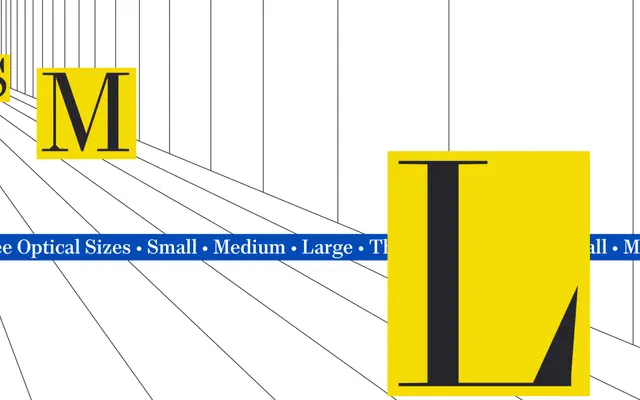
Montris L
A neoclassical serif by Rui Abreu, optimised for large headlines and titles as the display optical size within the broader Montris family.
Montris L is the largest of three optical sizes in Rui Abreu's Montris family, designed specifically for use from 96 point upward where its refined, high-contrast forms read at their best. The family sits stylistically between Modern and Scotch Roman types, offering a digitally precise take on neoclassical form without affectation. Twelve styles cover six weights from ExtraLight to Black, each with a matching italic, making it well suited to magazine and editorial title work.
Montris L is explicitly described as a neoclassical style sitting between Modern (Didone) and Scotch Roman, placing it in the neoclassical or transitional serif tradition with high contrast and refined detailing.